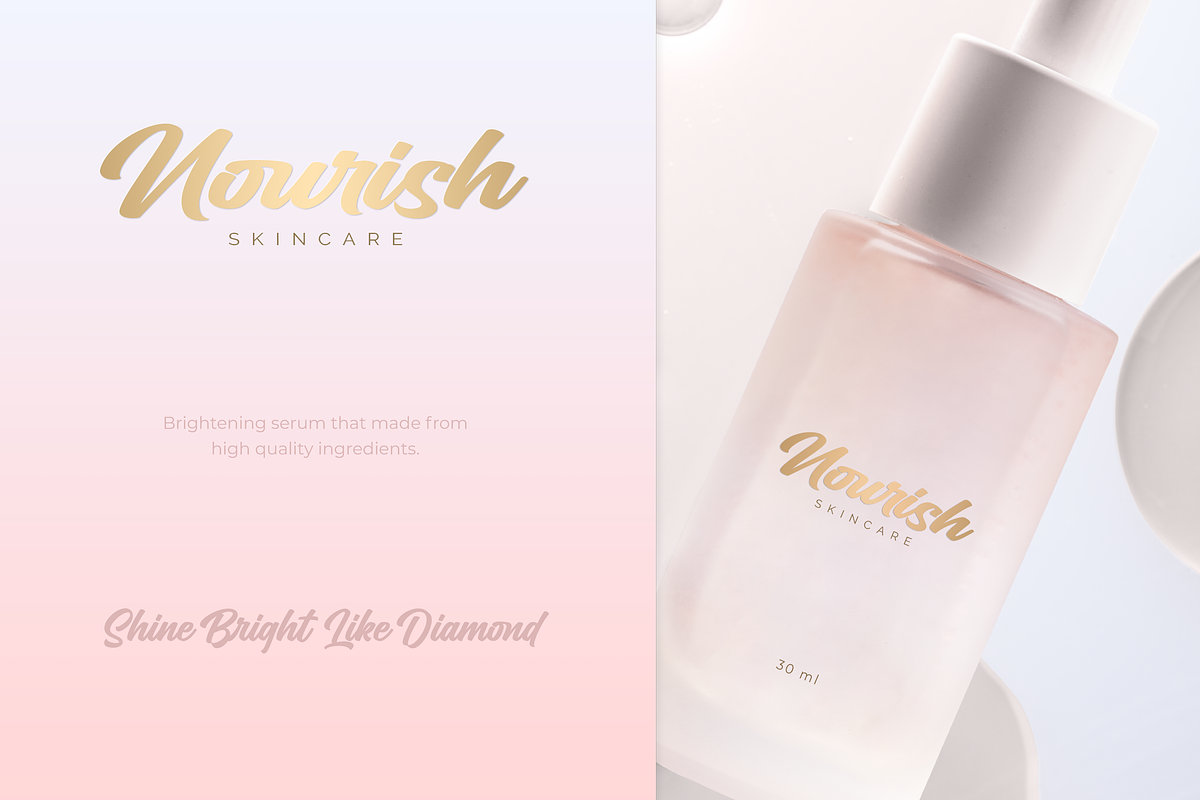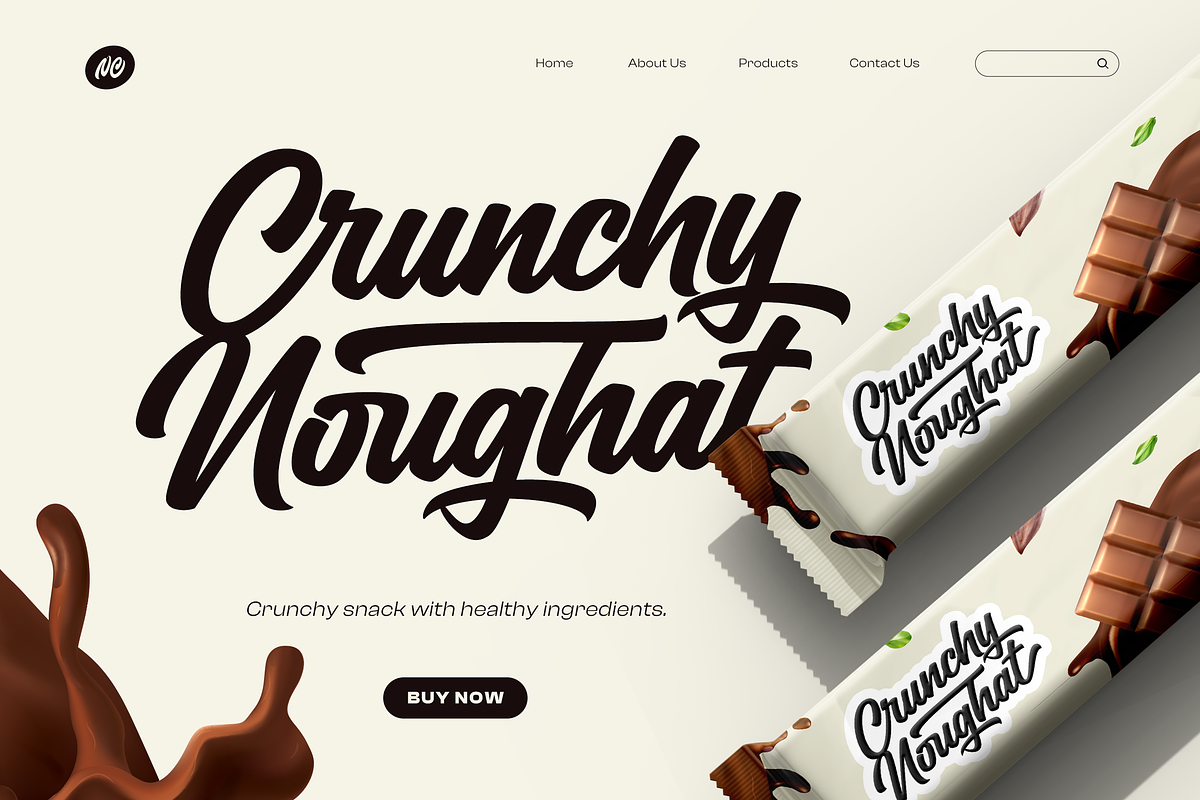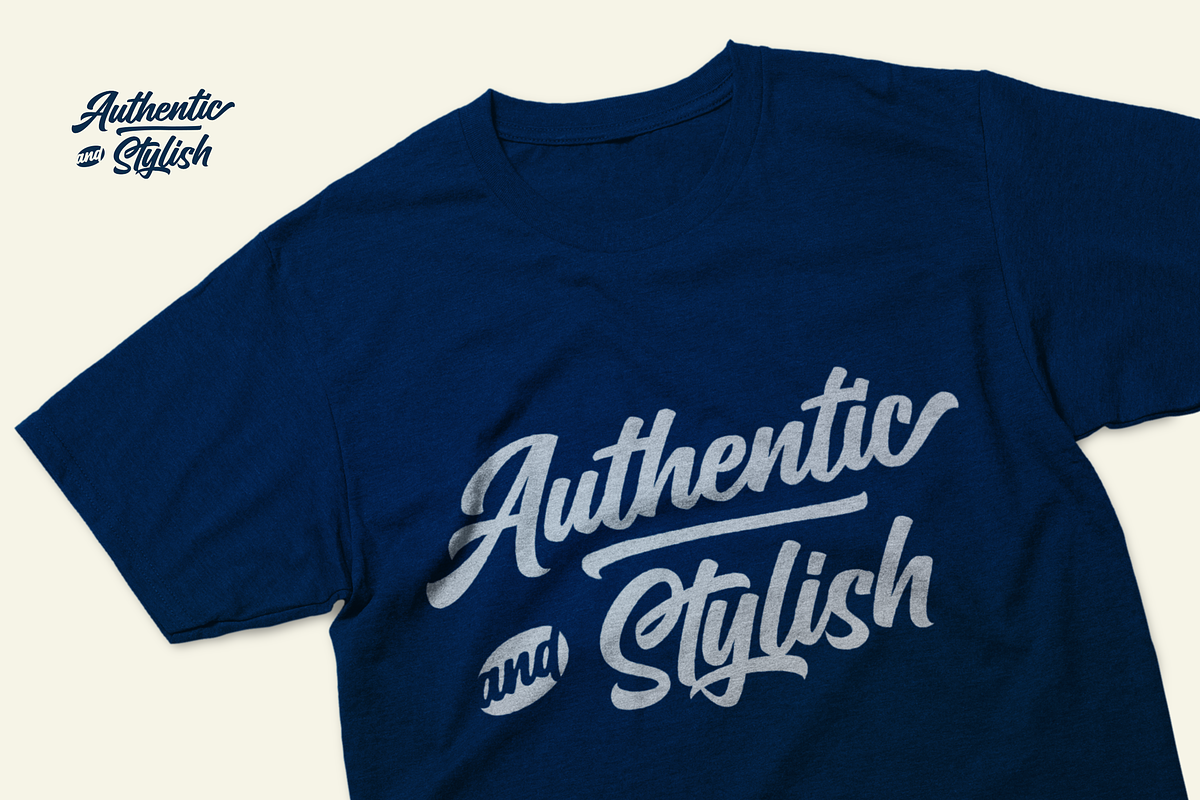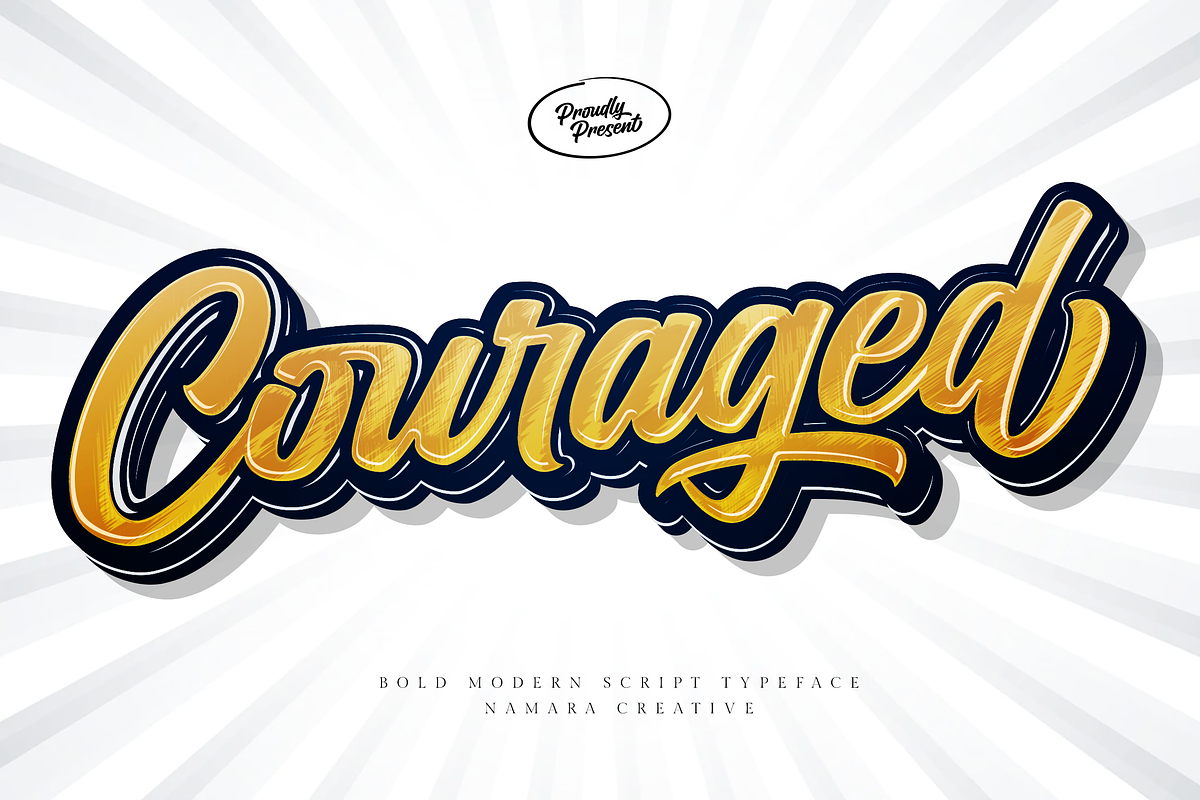
Couraged Bold Modern Script Typeface
Couraged is bold modern script typeface inspired by natural hand lettering style. Perfect for designing logotype, branding, promotional ads, quotes design, packaging, t-shirt design, poster, merchandise, social media and much more. Couraged Typeface comes with standard characters, numerals, punctuations and also included alternates, ligatures and swashes. Which let you customize your designs with so many alternative choices based in your creativity.
- Alternates, ligatures, swashes and multilingual support characters.